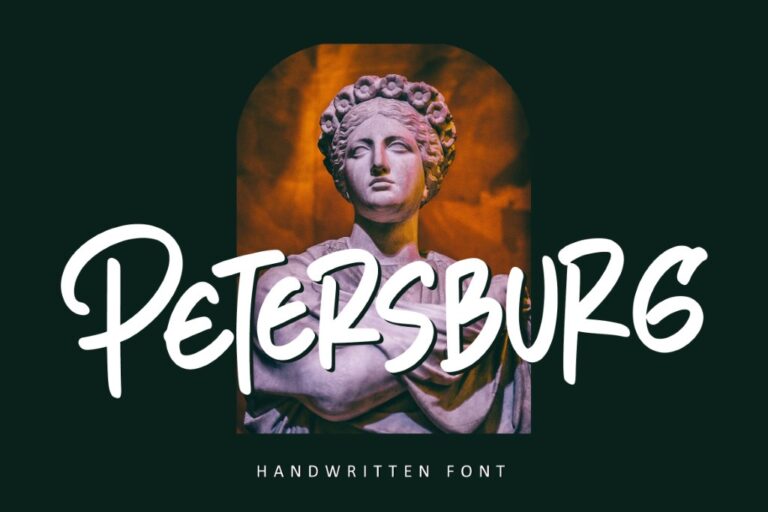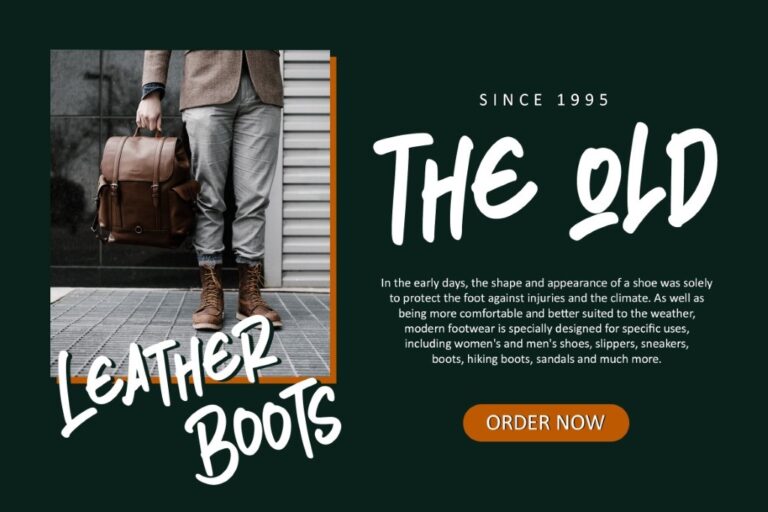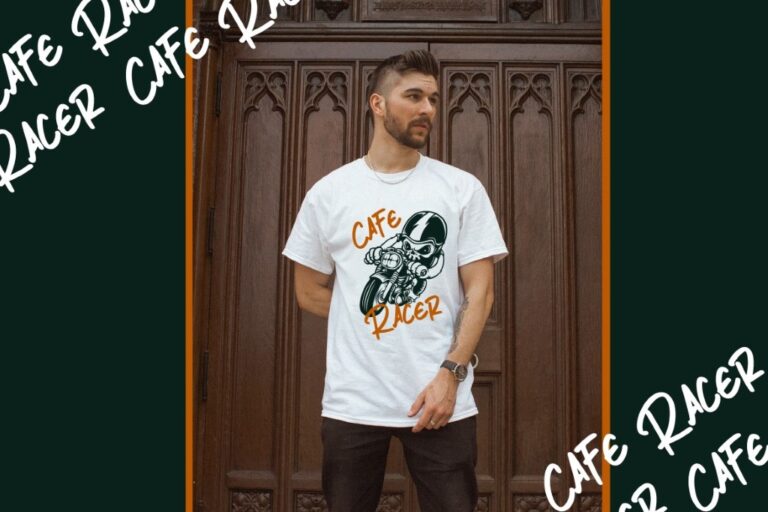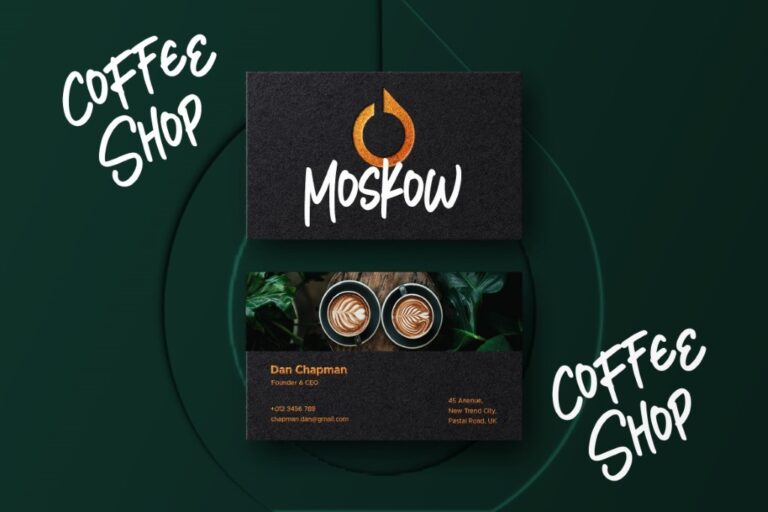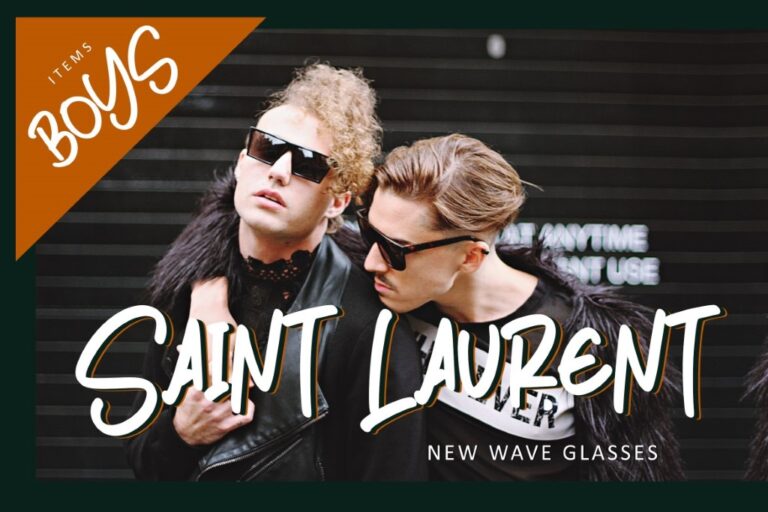
Petersburg
Petersburg is a sweet street typeface with characters that dance along the baseline. It can be used for various purposes such as logos, wedding invitations, headings, t-shirts, letterhead, signage, labels, news, posters, badges and so much more. This font is PUA encoded which means you can access all of the glyphs and swashes with ease!